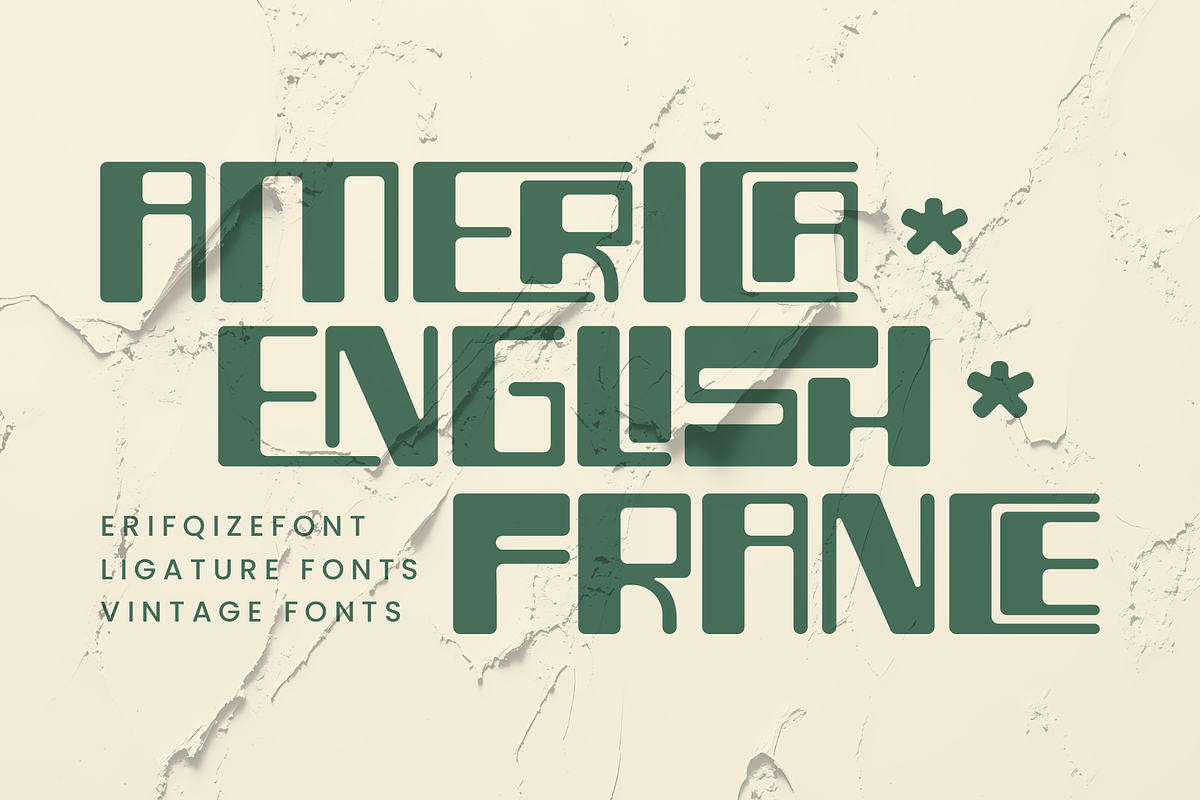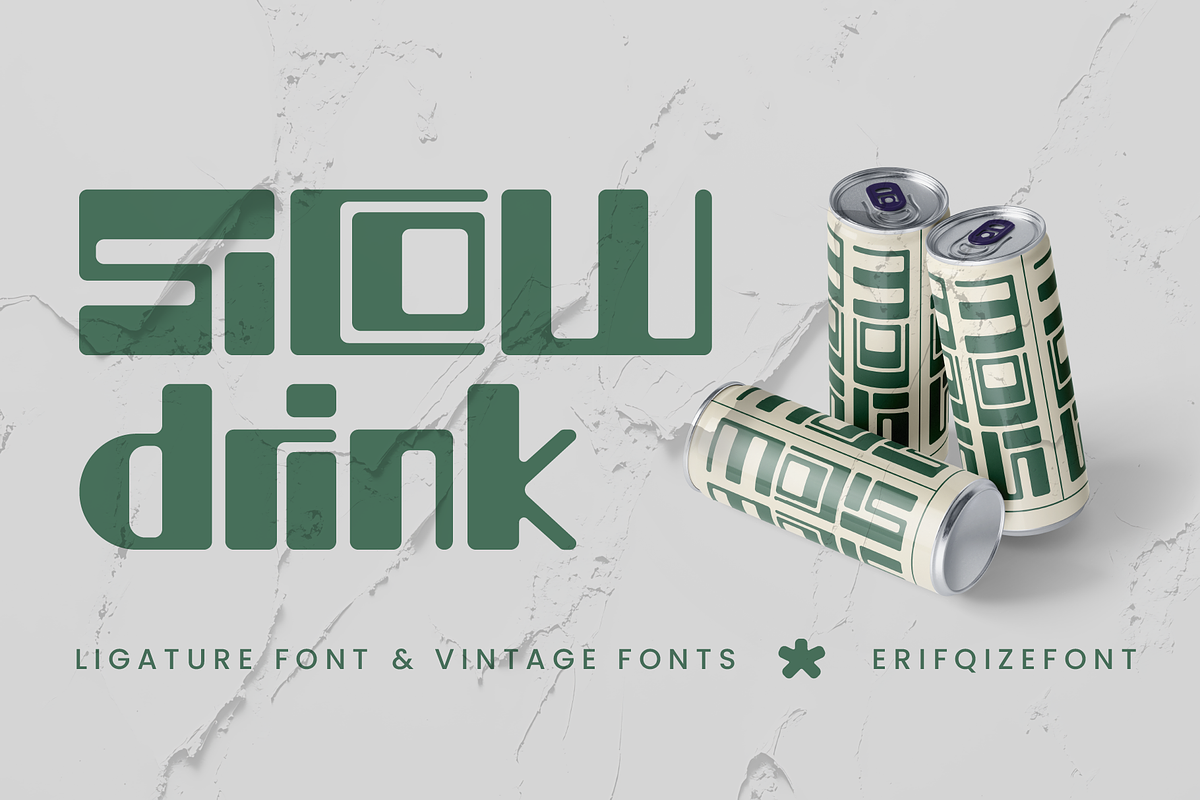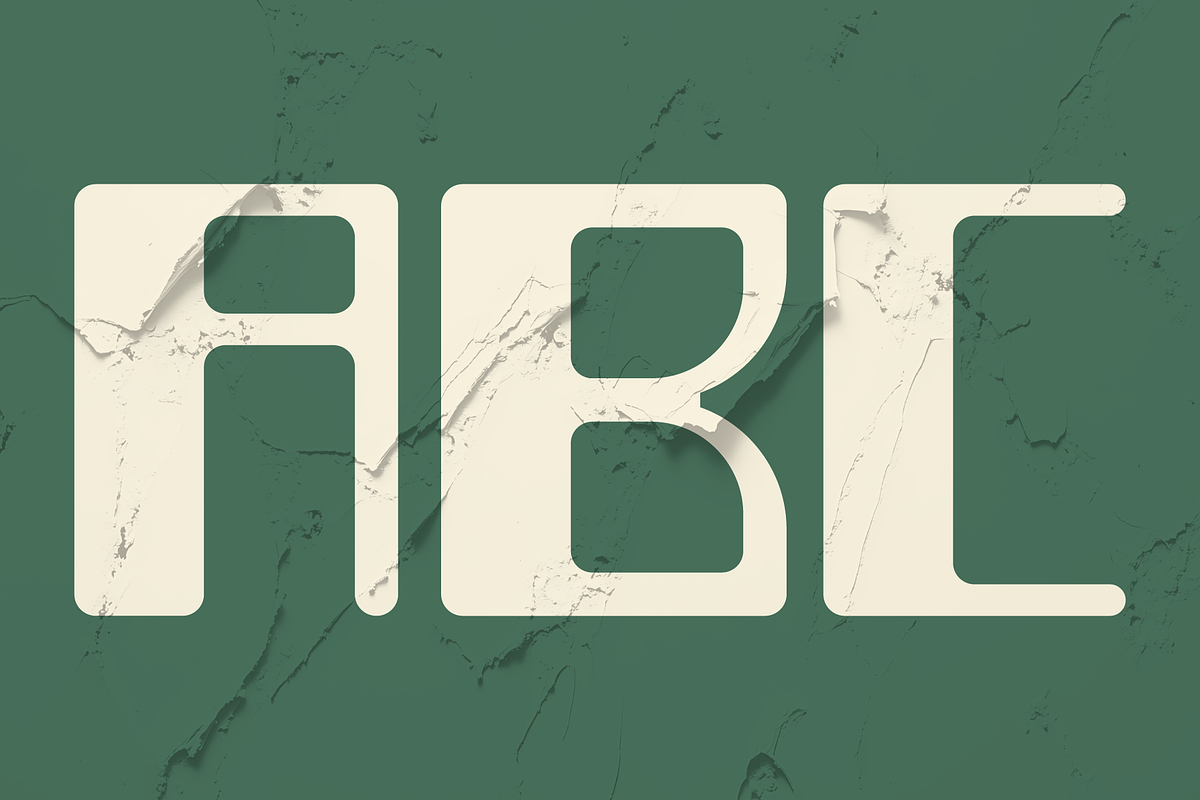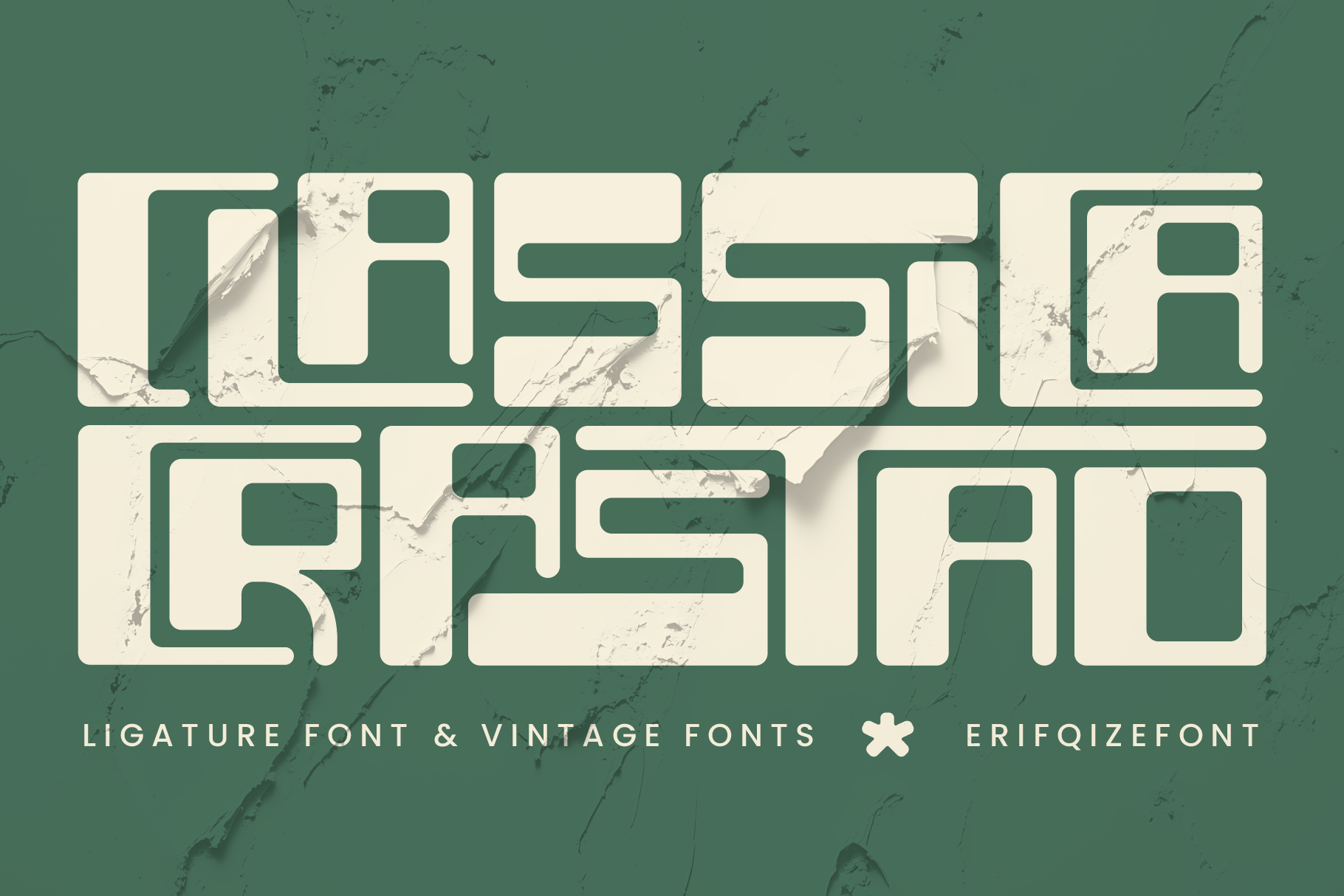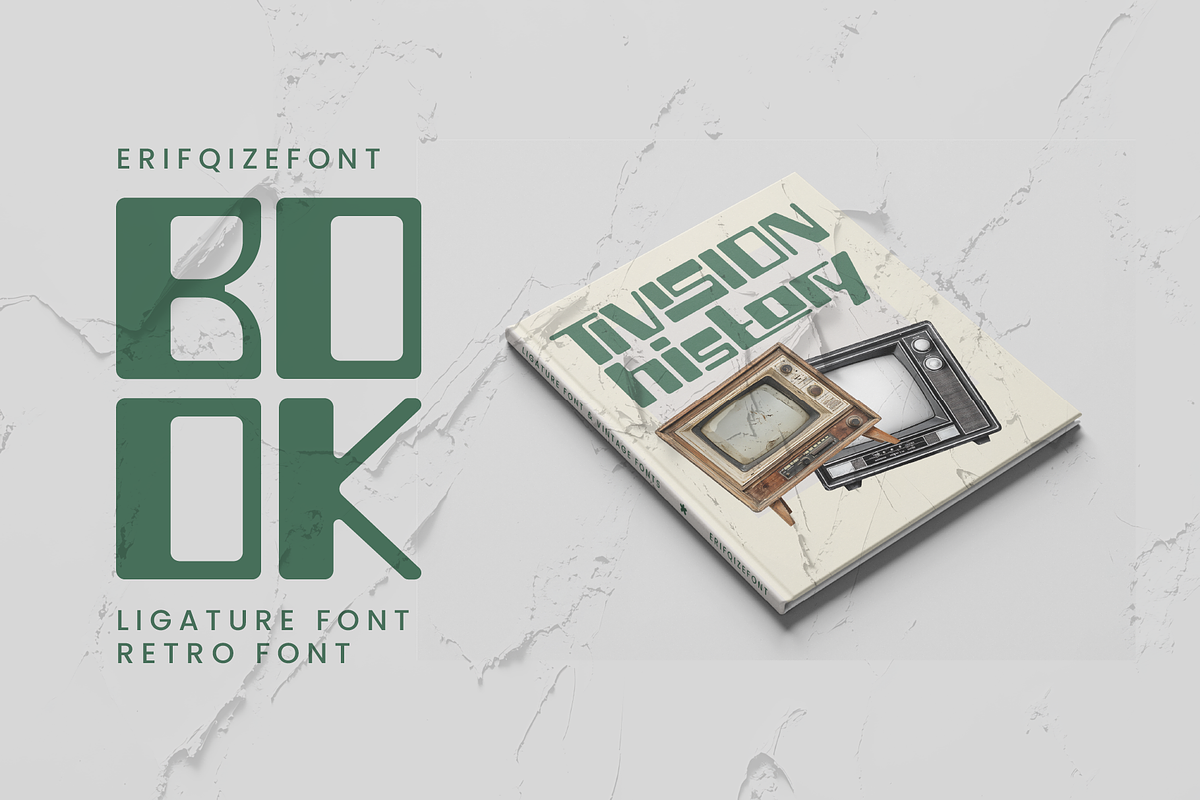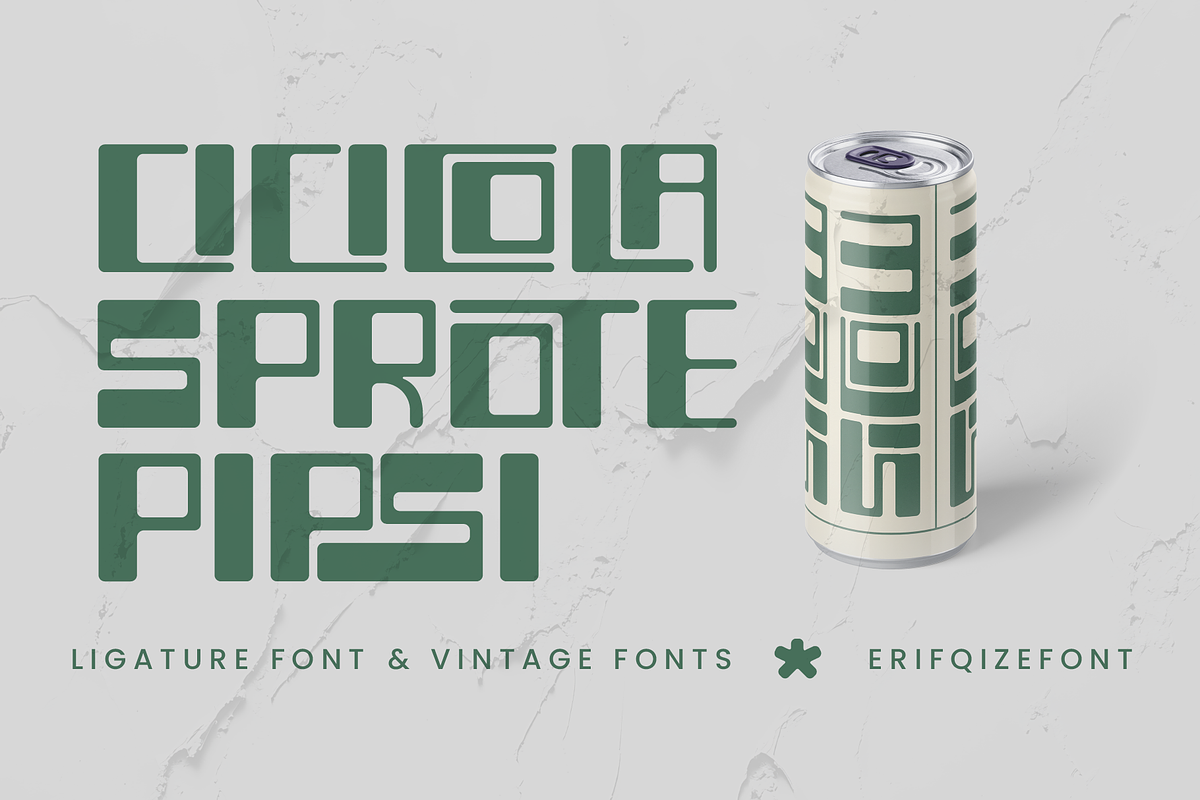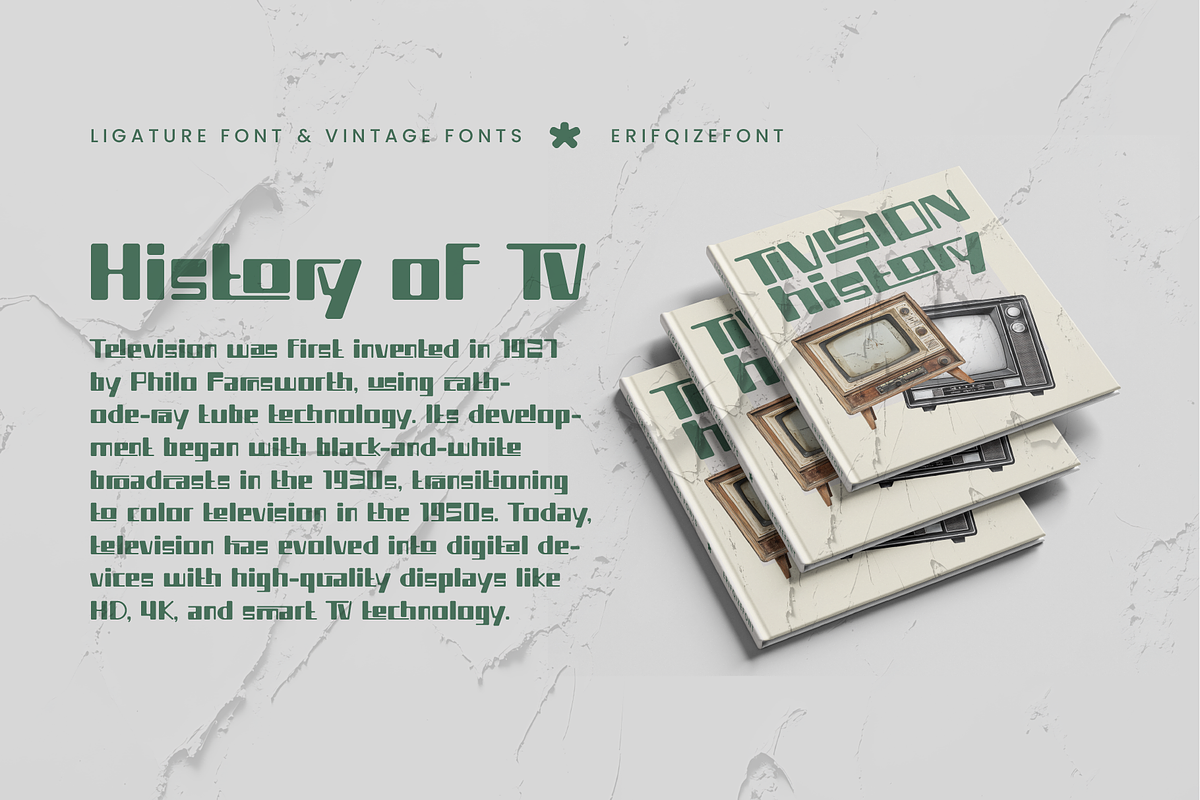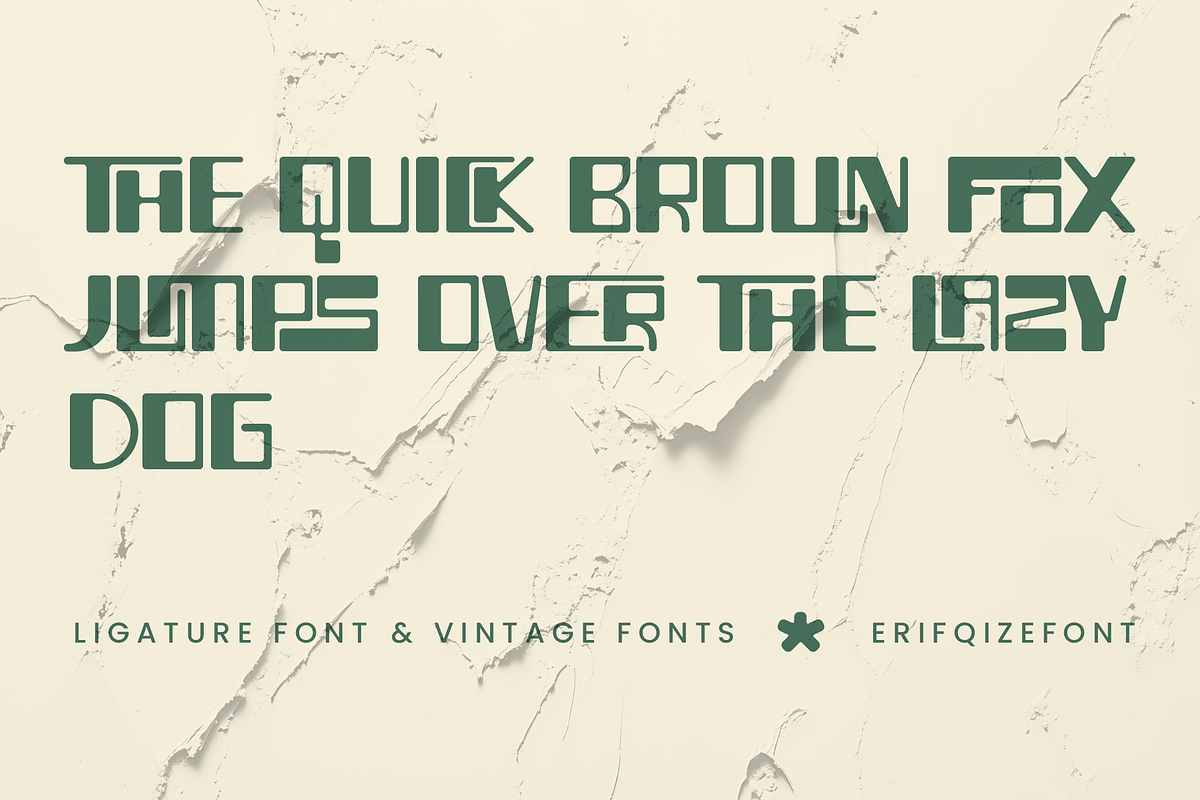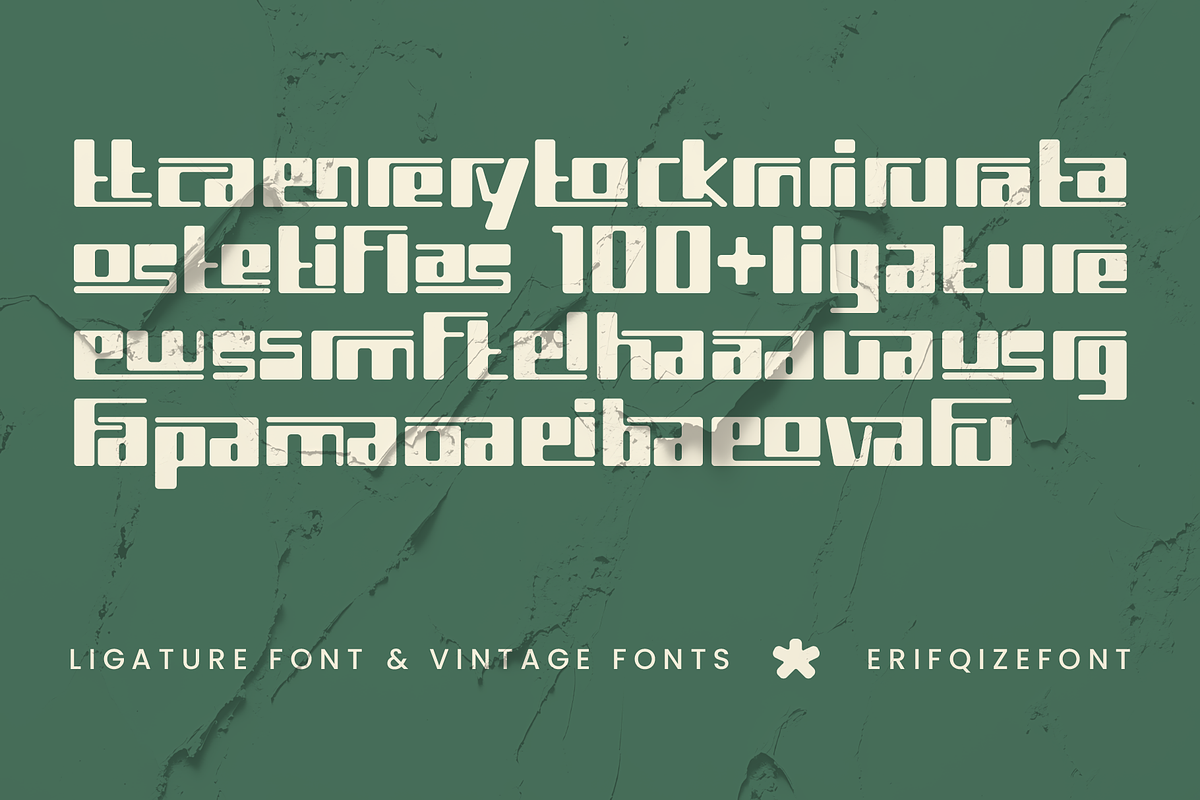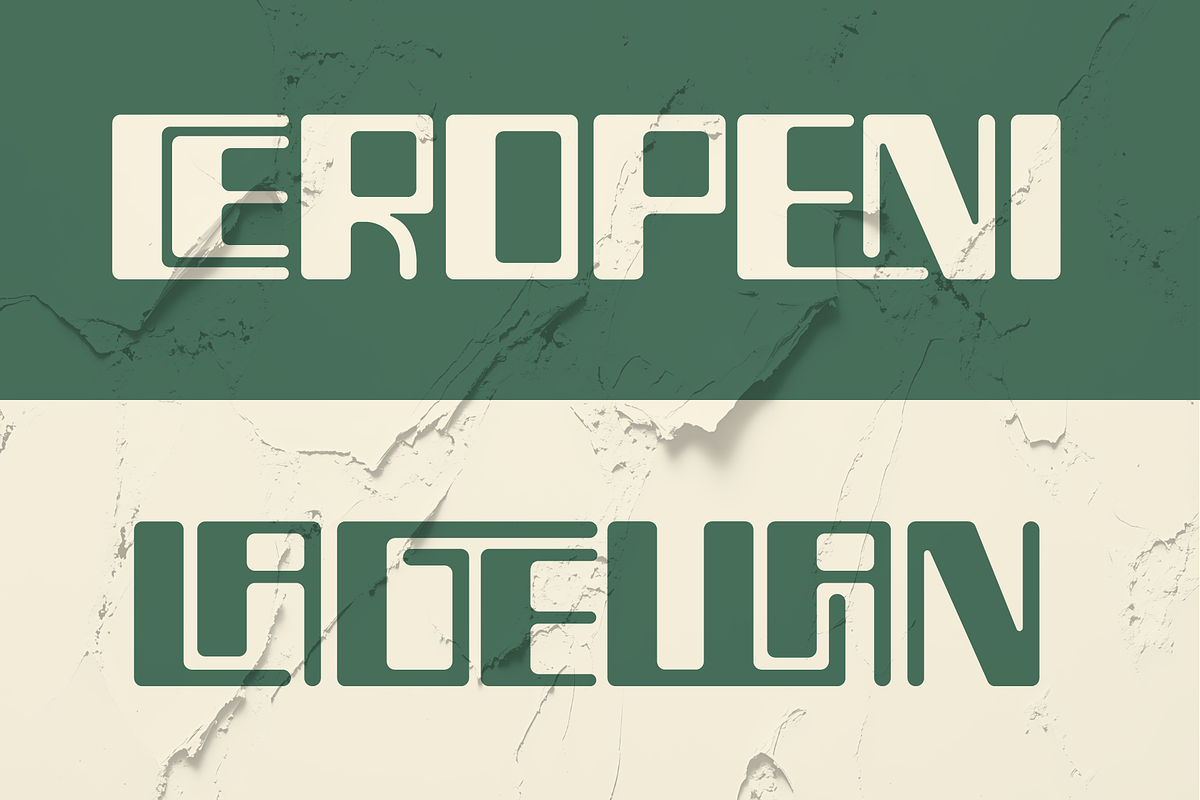
Classica Crastao Font
Classica Crastao is a bold and versatile vintage-themed sans serif font that combines classic charm with modern functionality. Its rounded corners and unique letterforms give it a distinctive, timeless appeal. Featuring over 100 ligatures for both uppercase and lowercase letters, Classica Crastao ensures seamless and elegant typography. With multilingual support, it is perfect for branding, headlines, logos, and designs that seek a touch of retro sophistication.